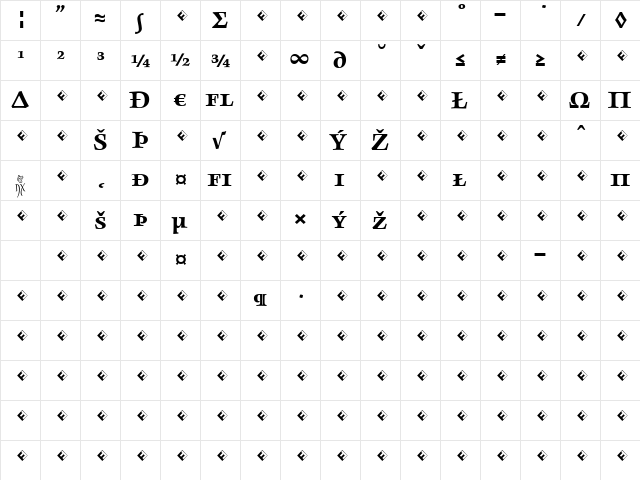
AngkoonTF-BoldSCExpert Regular
| Foundry | Xavier Dupre, published by FontShop International for the FontFont Library |
| Designer | Xavier Dupre |
Design Context for AngkoonTF-BoldSCExpert Typeface
AngkoonTF-BoldSCExpert takes a measured approach to typography — its balanced proportions and neutral character make it a reliable workhorse for both digital and print work. The heavy weight commands attention and anchors typographic hierarchies.